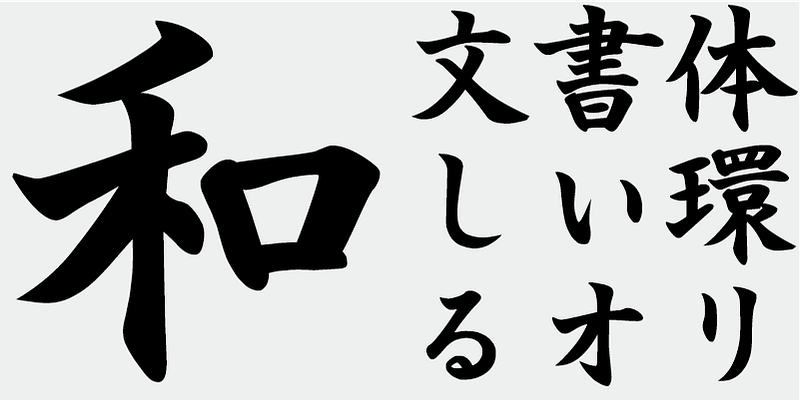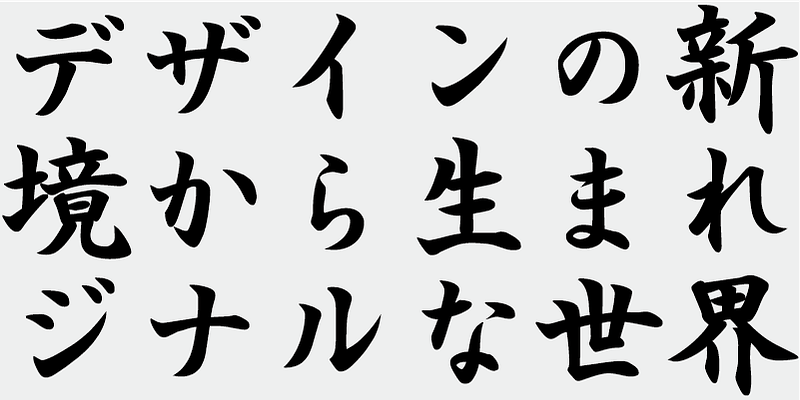
When I was a young boy, I studied rubbings of the inscribed letters of the 高貞碑 (kou-tei-hi, Gao-zhen-bei) inscription. The calligraphic style in Northern Wei during the Northern and Southern Dynasties had a strong, rough look, very different from the sophisticated writing style of 王義之 (Ou gi-shi, Wang Yi-zhi) and other writing masters in the Southern Dynasties. My master calligrapher instructed, “Study writing styles with a strong nature when you are young”. I was fascinated by this writing, attracted by the strong and resilient brush strokes of this style. AB-doudoukaisyo is modelled after the young and hot-blooded style of Wang Yi-zhi.